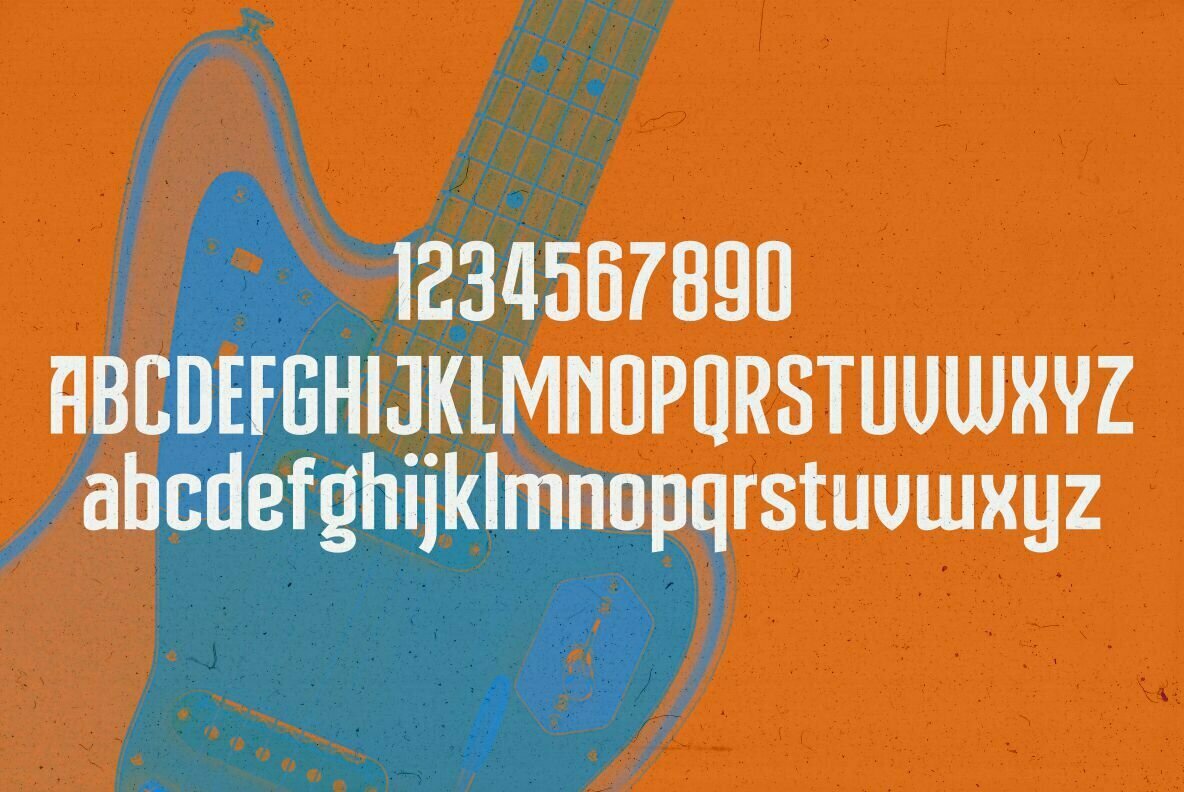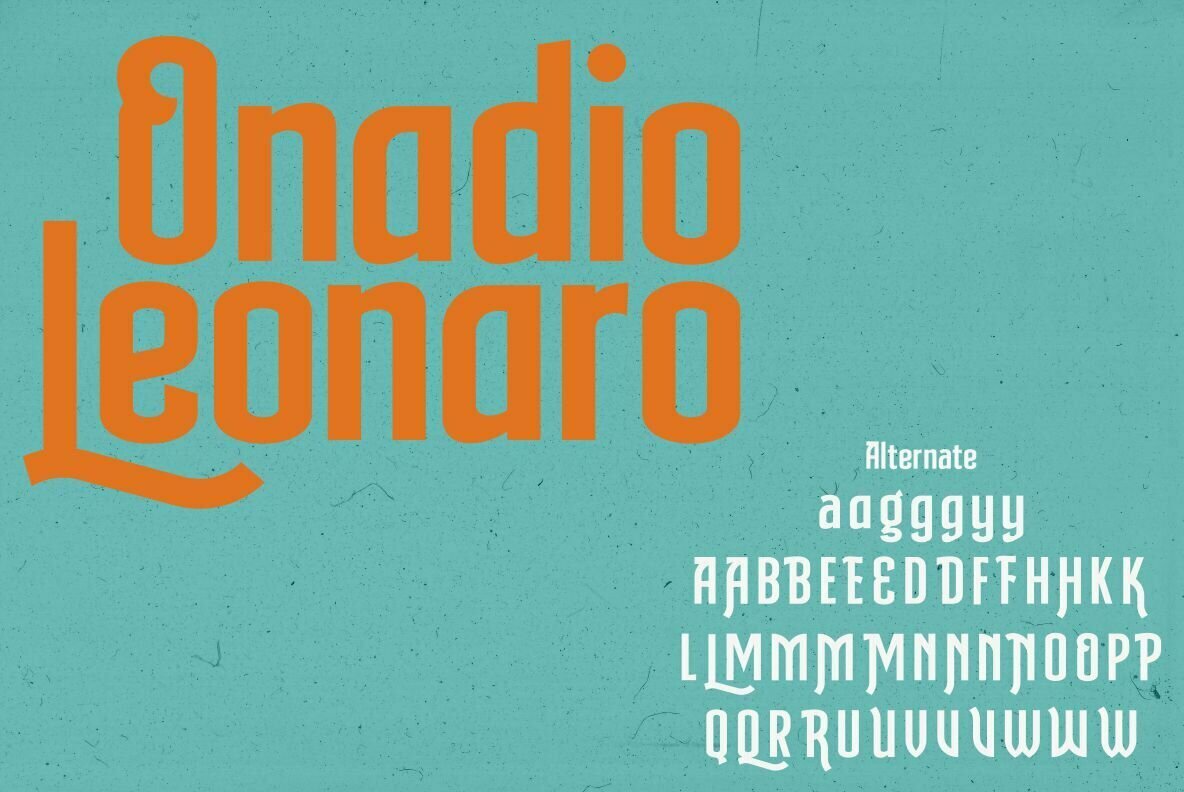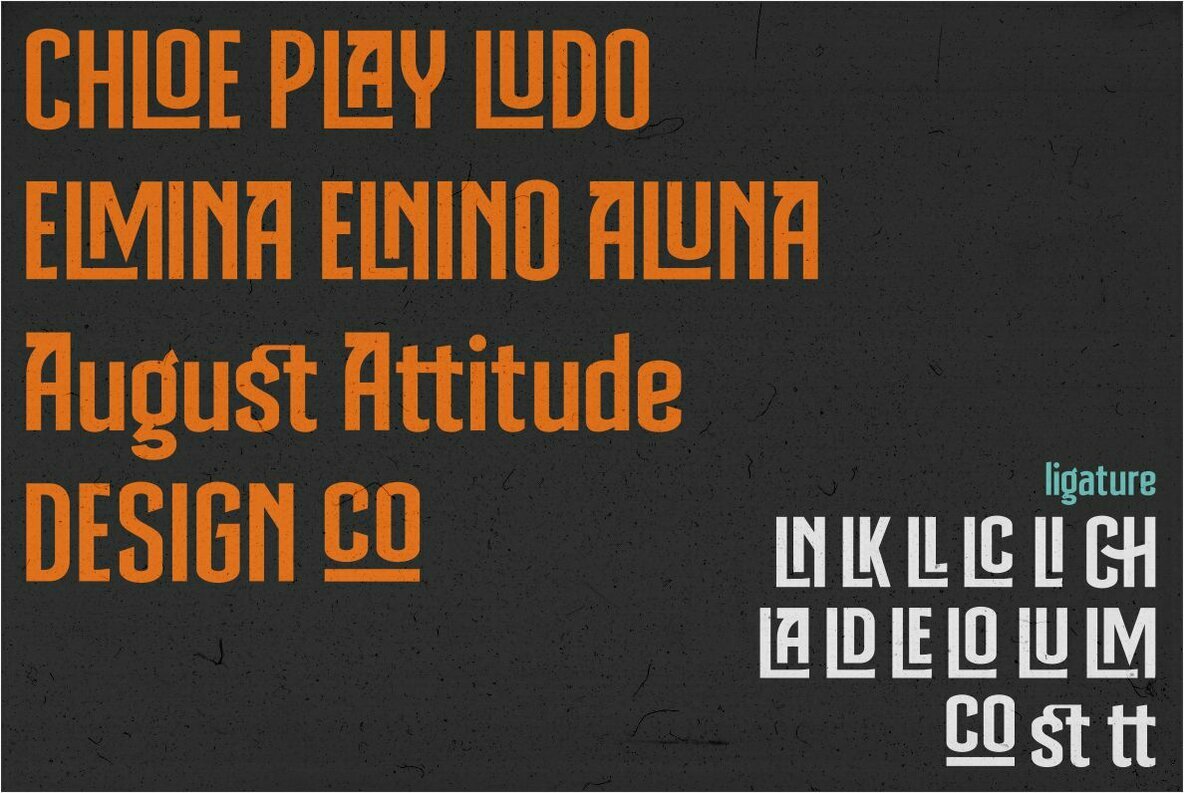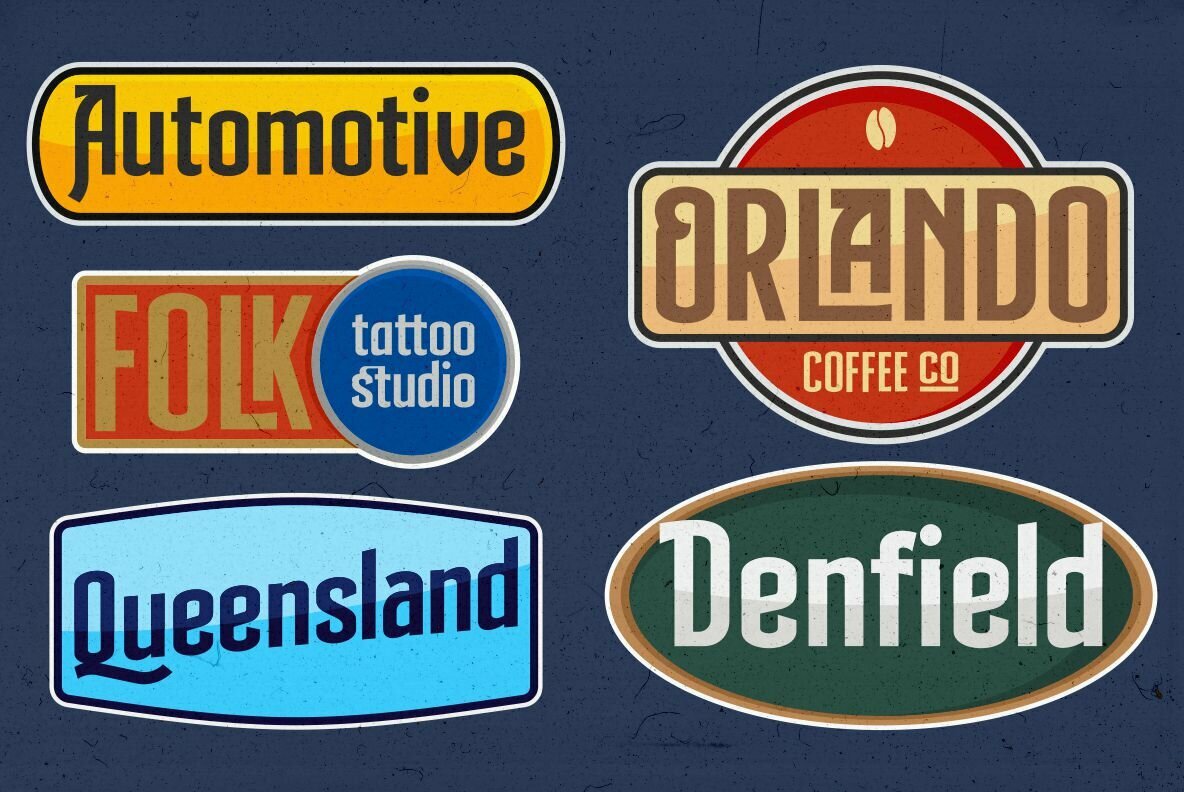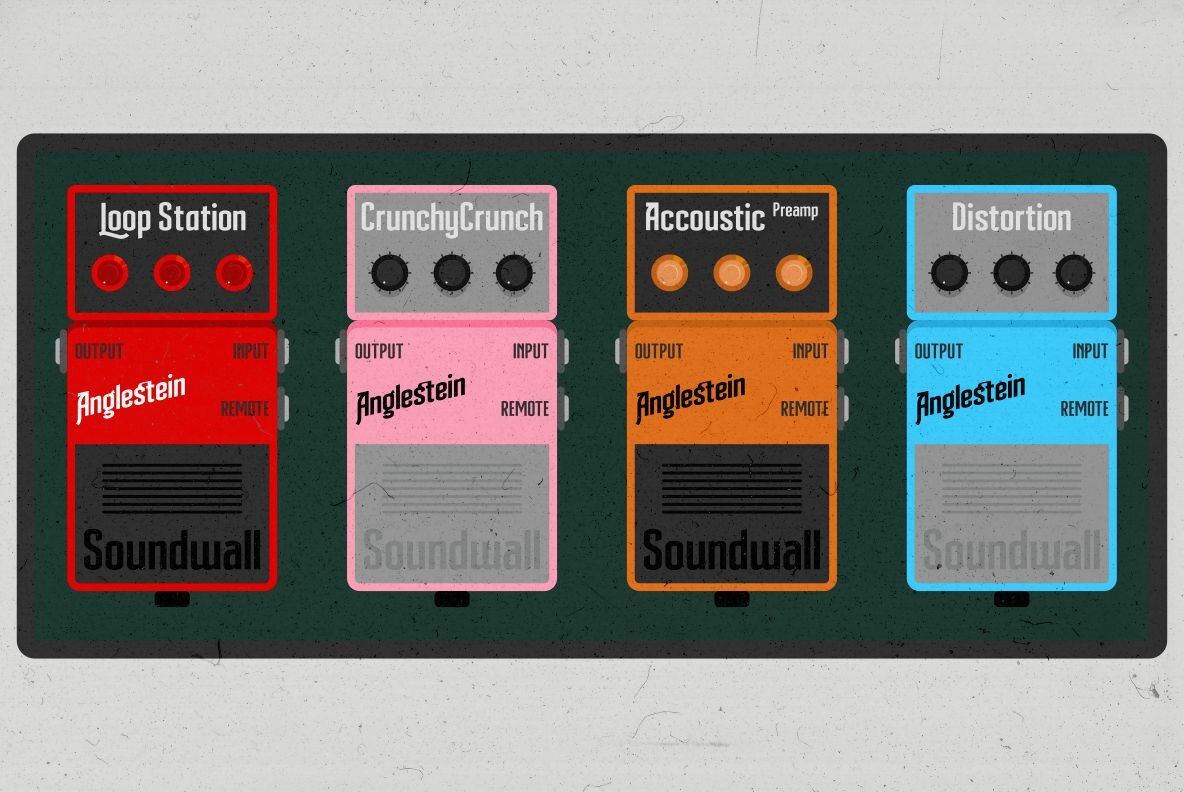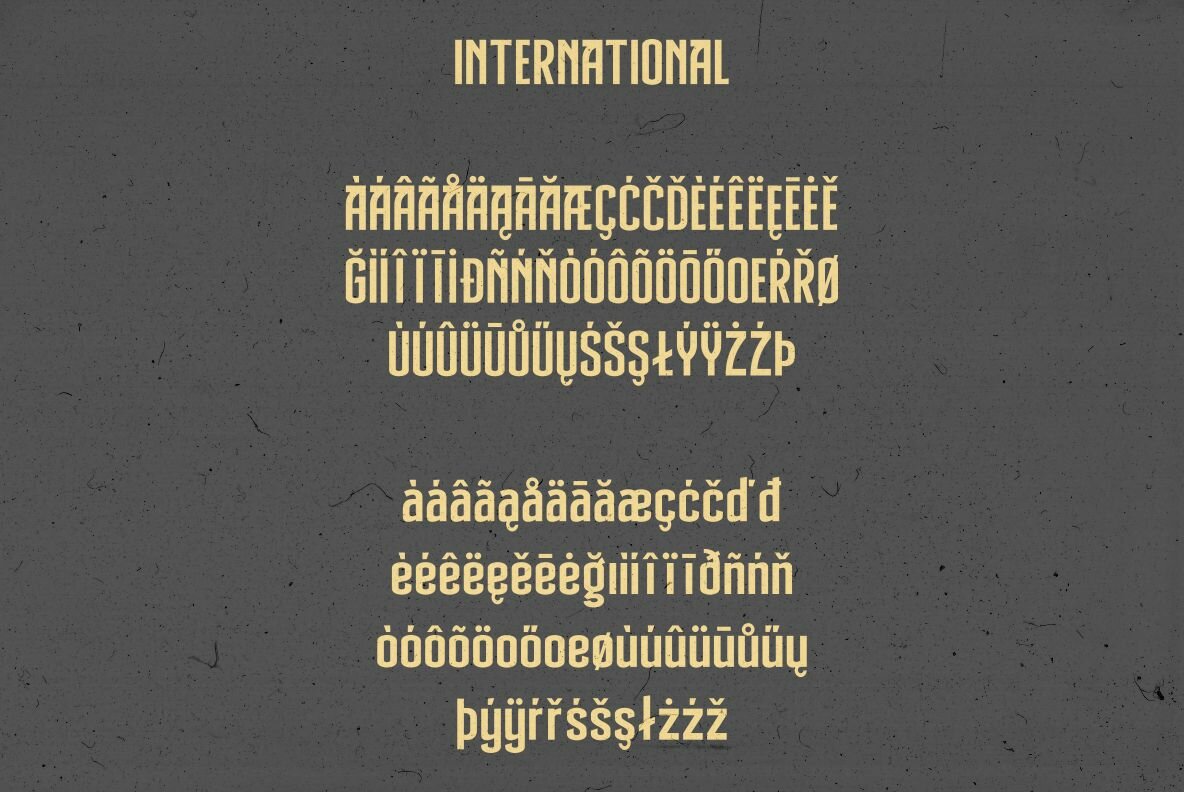
Anglestein
Delve into the world of typography inspired by the golden era of retro cars and classic amplifier emblems with Anglestein. This multipurpose display font offers an all-caps style, perfect for making a striking statement in various design contexts. Perfect for projects such as band wordmarks, album covers, video titles, stickers, clothing, t-shirt designs, badges, banners, and flyers. Anglestein captures the essence of vintage aesthetics while providing a versatile tool for modern applications.Anglestein: Bold Display Font with Retro Flair